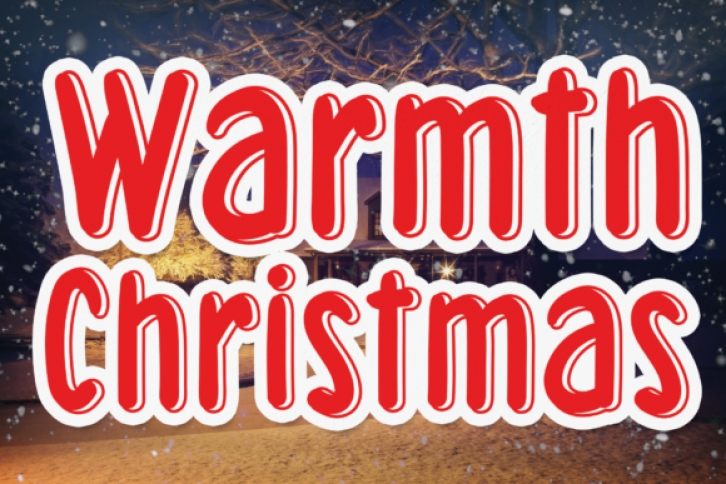
Warmth Christmas is a neat and simple display font. It has a cute and fun style and is ideal for a wide range of products. Add it ocnfidently and you will love the outcome.